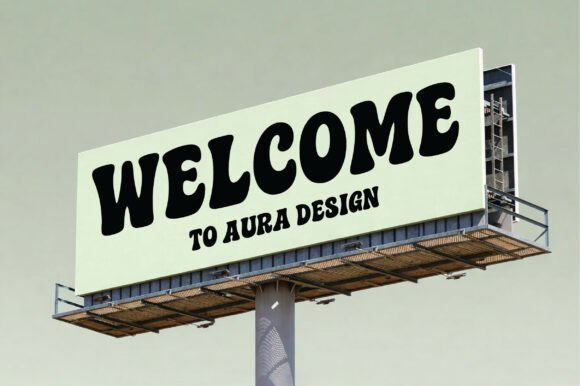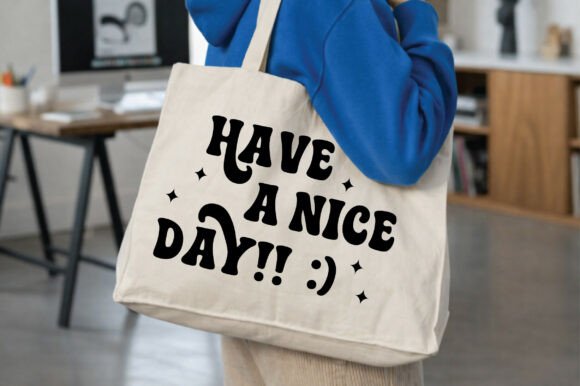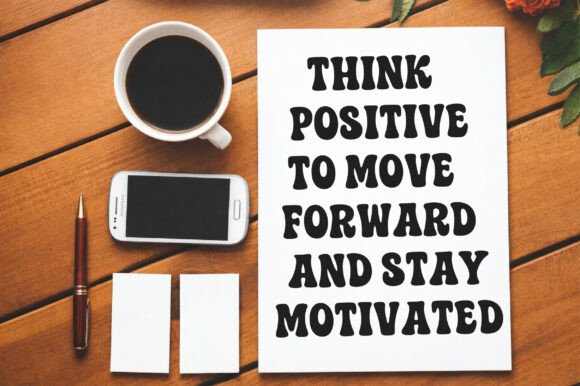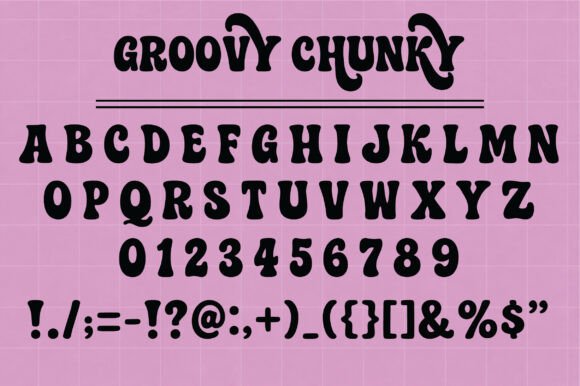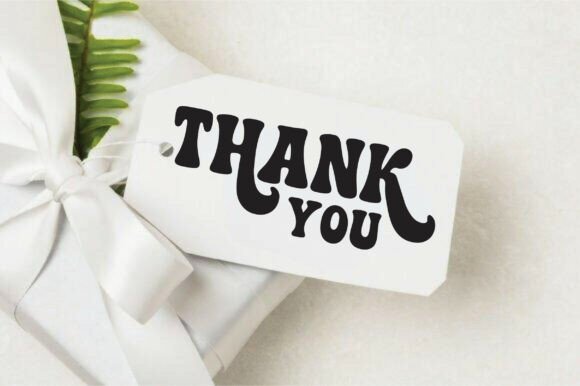
Introduction to Groovy Chunky Font
Have you ever stumbled upon the perfect design element that instantly elevates your creative project? For many designers, it’s that moment when everything comes together – colors, shapes, and typography – to create a visually stunning piece. For me, that moment often begins with the discovery of a unique and high-quality font. Recently, I fell in love with the Groovy Chunky Font, a bold and playful display font that adds a fun, modern touch to any design.
With its soft rounded shapes and chunky letterforms, the Groovy Chunky Font is a design resource that’s hard to resist. Its cheerful retro feel and transparent background make it a versatile choice for digital or print projects. Whether you’re a seasoned designer or just starting out, this font is a valuable addition to your toolkit. And the best part? It’s available for free download, making it an accessible design element for designers of all levels.
Key Features of Groovy Chunky Font
- High-quality design: The Groovy Chunky Font is designed with precision to deliver a professional look for your creative project.
- Transparent background: This font allows for seamless integration with your design, giving you the flexibility to create unique and visually appealing graphics.
- Unique characteristics: This font features bold and chunky lettering, perfect for adding a playful touch to your designs.
- Resolution: The font is designed for high-resolution printing and digital displays, making it ideal for use in various creative projects.
- Size: The font is available in a single size, but its chunky design makes it perfect for use in a variety of contexts, from posters to social media graphics.
Honest Review: Groovy Chunky Font
I recently had the chance to work with the Groovy Chunky Font in a creative project and I must say it’s been a fun experience. This high-quality font is perfect for adding a playful touch to your designs. One of the standout features is its transparent background, which makes it easy to layer with other design elements.
Here are some things that work well with the Groovy Chunky Font:
- It’s easy to read, even in small sizes
- Its chunky design makes it perfect for creating bold, eye-catching headlines
- It’s a great design resource for creatives who want to add some personality to their work
- It may not be suitable for formal or professional projects due to its playful design
Overall, I’m impressed with the Groovy Chunky Font. It’s a great addition to any designer’s toolkit, especially for creative projects where a fun, playful vibe is needed. And the best part? It’s free to download, making it an accessible design resource for everyone.
The Groovy Chunky Font is perfect for creating eye-catching headings, titles, and other design elements. It’s also great for adding a touch of personality to your designs, making it a great choice for creative projects. With its transparent background, this font can be used on any background color, making it a versatile design resource.
Getting the Most Out of Groovy Chunky Font
To get the most out of the Groovy Chunky Font, experiment with different font sizes, colors, and settings. You can also combine it with other design elements, such as images or graphics, to create a unique and engaging design. With its free download, you can try out the font risk-free and see how it can elevate your design to the next level.
Q: Are there any limitations on the size of the Groovy Chunky Font?
No, there are no limitations on the size of the Groovy Chunky Font. You can use it at any size you need, from small text labels to large headings. However, please note that using the font at extremely large sizes may affect its readability and legibility.